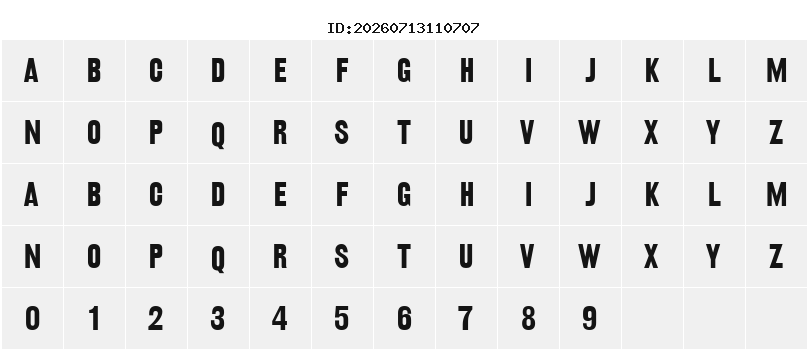
RailroadGothic Preview
About RailroadGothic.ttf
RailroadGothic.ttf is a modern, elegant sans-serif font designed for ultimate readability and visual harmony. Perfect for branding, headlines, web design, and print materials.